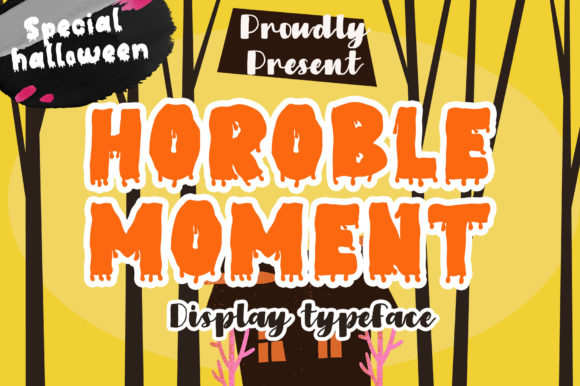
Horoble Moment Font
Introducing the Horoble Moment Font - a spine-tingling display font that will cast a spell on your designs. Handcrafted by the talented isolatype, Horoble Moment is the epitome of eerie elegance. Each character dances with a mischievous charm, perfect for capturing the essence of Halloween, horror, and all things spooky.
Indulge in the thrill of creating hauntingly beautiful posters that will make your audience scream with delight. Design t-shirts that ooze with a touch of the macabre, sure to turn heads wherever you go. With Horoble Moment, the possibilities are endless - let your imagination run wild and conjure up designs that will send shivers down spines.
Whether you're a seasoned pro or just starting your typographic adventure, Horoble Moment is the perfect font to add a touch of the extraordinary to your creative arsenal. Its versatility knows no bounds, making it an essential tool for designers of all levels.
So, embrace the darkness and let Horoble Moment be your guide on a journey into the unknown. Download it today and unleash the power of spine-chilling typography!